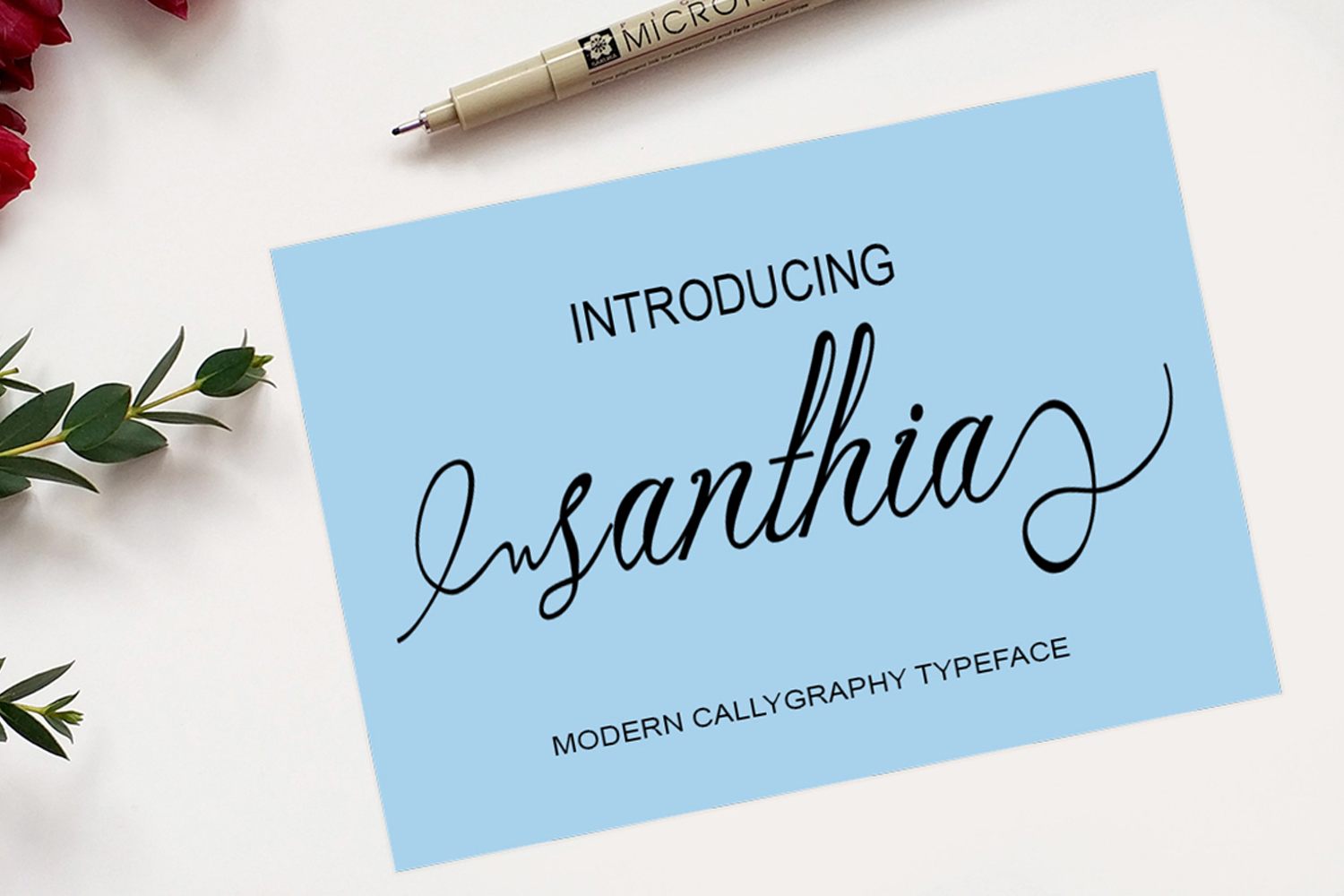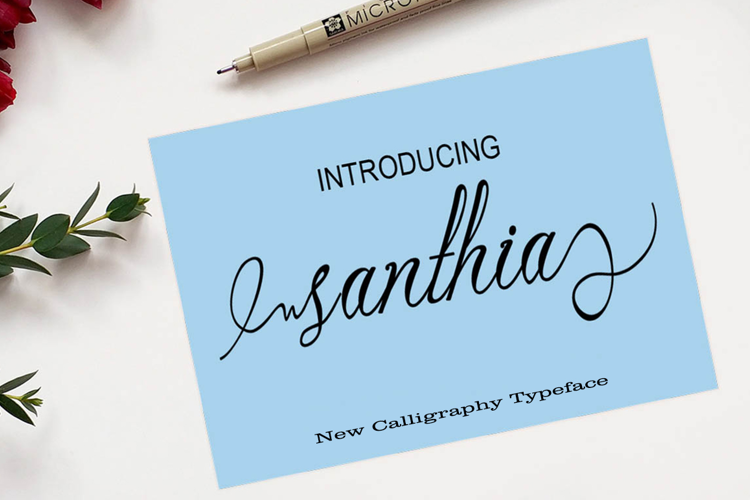
Santhia
Santhia script Calligraphy. This font was designed by handwriting, and it has a modern and unique forms of calligraphy, the writing style is very natural.
So wonderful are invitations like greeting cards, branding material, business cards, quotes, posters, and more !!